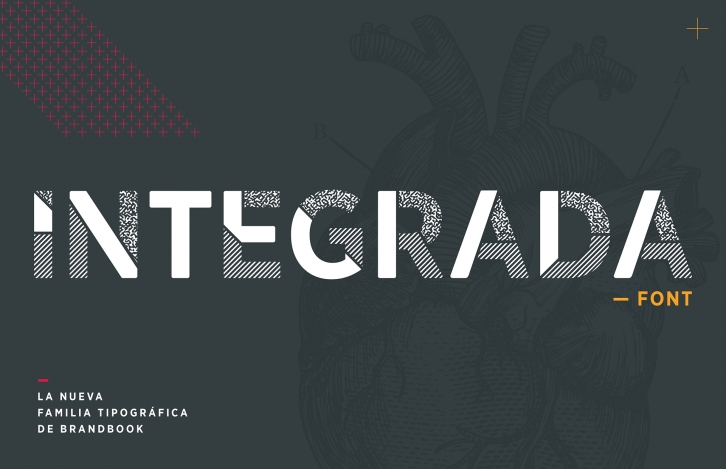
INTEGRADA is a trendy and unique font with an authentic style. It was designed by navajas and it's a great choice for creative people who need such a font. It was released on May 2, 2017 and the file size is 8.26 MB. INTEGRADA will add an organic vibe to any design idea!